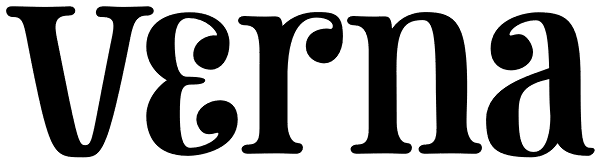
Verna
Verna is a versatile contemporary font. Verna has a set of automatic ligatures, discretionary ligatures, swash initials and a selection of ornaments that you can easily access in any Opentype savvy program. Ornaments are placed in stylistic set 1...